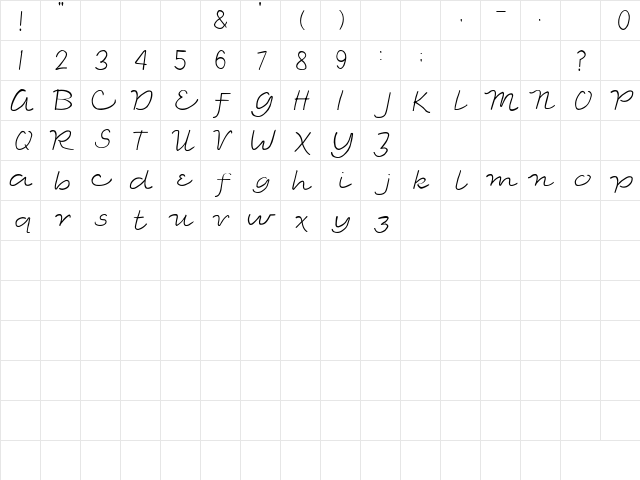
2Peas Oscar Regular
Design Context for 2Peas Oscar Typeface
2Peas Oscar offers clean, dependable letterforms without strong stylistic allegiance, making it a practical choice for designers who need flexibility.